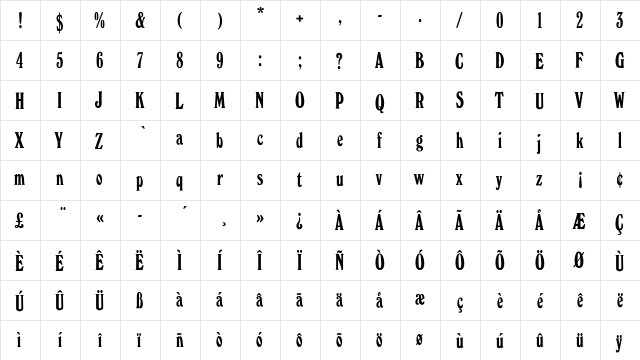
WindsorEF-Elongated Regular
| Foundry | Adobe Systems Incorporated |
Design Context for WindsorEF-Elongated Typeface
WindsorEF-Elongated takes a measured approach to typography — its balanced proportions and neutral character make it a reliable workhorse for both digital and print work.